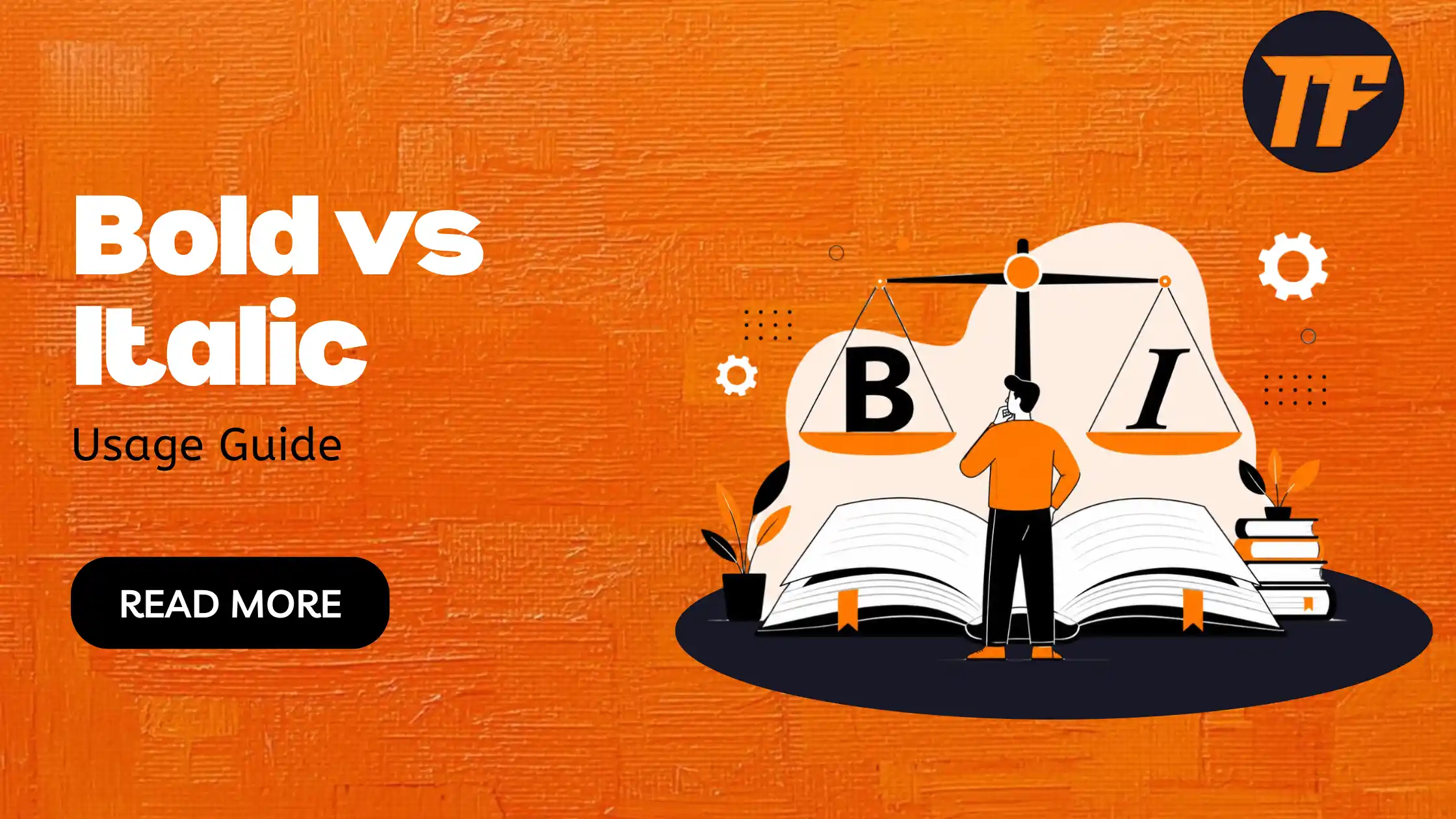
We see bold and italic text online all the time, but have you ever wondered why people use it? Or have you wondered what would be the best way to use them if you have to utilize them in your own usernames, text, and graphics?
Bold and italic text are one of the most prominent types of text formatting because of their shapes. They help draw attention to important words and make content easier to read and understand. This is why they are widely used in digital writing, design, and social media. In this article, we are going to discuss what bold and italic text are, how they are different, and when to use each of them correctly.
Bold text is a type of text formatting that makes letters appear thicker and darker than normal text. It is mainly used to highlight important information and draw the reader’s attention quickly. Because of its strong visual impact, bold text is often used in headings, key points, warnings, and important instructions.
In digital writing and design, bold text helps organize content by making key ideas stand out from the rest of the text. It improves readability and allows readers to scan information more easily. For example, writers may use bold to emphasize keywords or essential phrases within a paragraph so they are not missed.
· Example: Life is good!
Italic text is a style of text formatting where the letters are slightly slanted to the right. It is mainly used to give subtle emphasis or to show a difference in meaning without making the text too strong or bold. Italic text is often used for book and movie titles, foreign words, technical terms, and thoughts in writing.
In digital content and design, italics help add variety and clarity to text. They guide the reader’s attention in a softer way compared to bold text. For example, a writer may use italics to highlight a word for emphasis or to indicate a specific term that needs special attention.
· Example: Life is good!
Bold and italic text are often used together in writing, but they serve different purposes and create different visual effects. Understanding these differences helps in choosing the right style for the right situation.
Bold text appears thicker and darker, making it stand out strongly. Italic text is slanted and looks lighter in comparison, giving a softer visual effect.
Bold is mainly used to grab attention and highlight important information. On the other hand, italic is used for subtle emphasis or to indicate a different meaning or context.
Bold provides strong emphasis that immediately catches the eye. Italic offers gentle emphasis that does not overpower the surrounding text.
Bold is often used in headings, key points, and warnings. However, italics are commonly used for book titles, foreign words, and internal thoughts in writing.
Bold improves scanning by making key information more visible. Italic improves flow by adding variation without making the text too heavy.
Bold text should be used when you need to make certain words or information stand out clearly from the rest of the content. It is most effective for highlighting important points, guiding attention, and improving readability in structured text.
Bold text is useful for drawing attention to the most important details within a sentence or paragraph. By making keywords or phrases stand out, you help readers quickly understand the main message without getting lost in extra information.
Bold is commonly used in headings and subheadings to clearly separate sections of content. This makes the structure of an article or document easier to follow and allows readers to navigate through different topics smoothly.
When presenting instructions, rules, or warnings, bold text helps ensure that critical information is noticed immediately. This is especially important in guides, tutorials, and safety-related content where missing details could cause confusion.
Bold text is often used in calls to action, such as buttons, links, or short phrases that guide user behavior. It helps make these actions more visible and encourages users to respond or interact with the content.
In long-form content like articles, blogs, or reports, bold text improves scanning by highlighting the most relevant points. This allows readers to quickly find the information they are looking for without having to read everything in full.
Italic text should be used when you want to add gentle emphasis or provide distinction without making the text too strong or visually heavy. It is commonly used in writing to create subtle focus, show style differences, or indicate special types of words. Proper use of italics helps maintain readability while adding clarity and variation to your content.
Italic text is useful when you want to emphasize a word lightly without overpowering the sentence. It helps draw attention in a softer way compared to bold text, making it suitable for situations where strong emphasis is not needed.
Yes, when used correctly they improve readability by highlighting important parts of the text. But overuse can make the content harder to read and less organized.